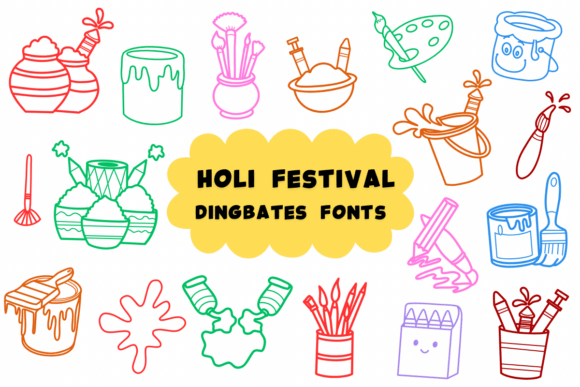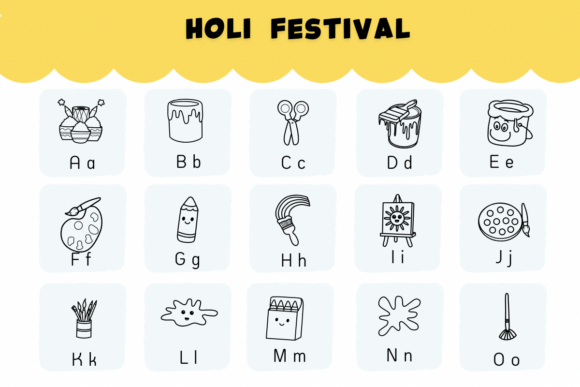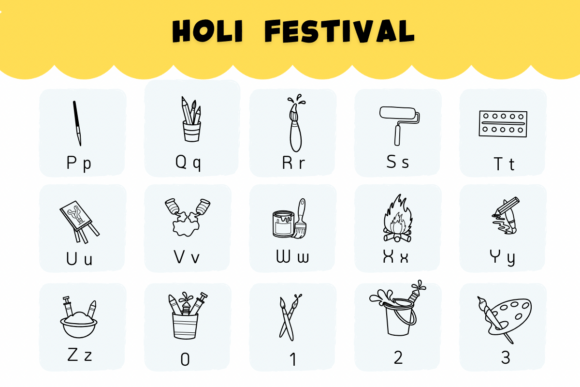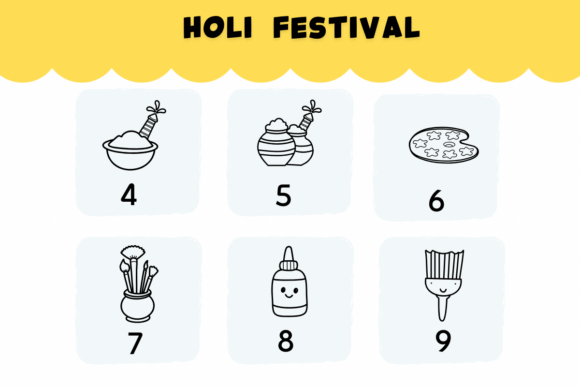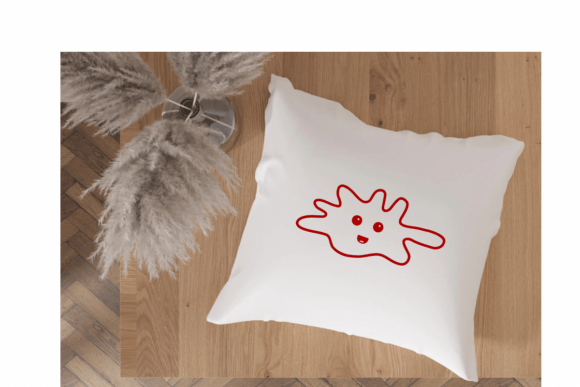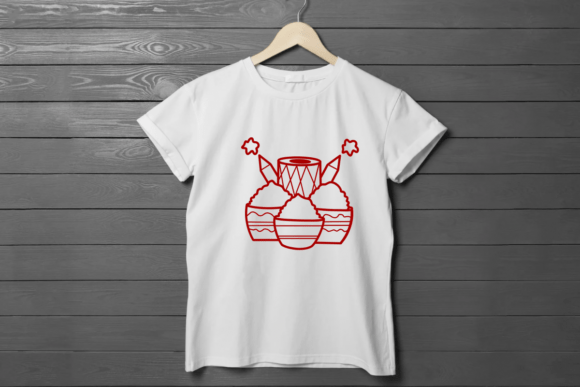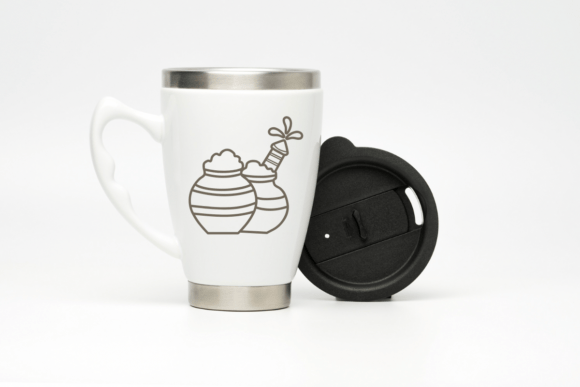
Get Ready to Paint Your Creativity with Holi Festival Font
Have you ever stared at a blank canvas, a sheet of paper, or a digital screen, searching for that perfect spark to ignite your creative project? The blank slate can be intimidating, but it’s also an opportunity to unleash your imagination. Whether you’re a seasoned designer or a DIY enthusiast, you know that the right tool can make all the difference.
Enter the Holi Festival Font, a charming dingbats font that brings the vibrant spirit of India’s beloved Holi Festival to your creative projects. With its sketch-style design, this font is perfect for adding a personal touch to wedding invitations, DIY crafts, decorations, logos, and many other creative ideas. As a designer, you’ll appreciate the unique character of the Holi Festival Font, which can elevate your work and make it stand out from the crowd.
Holi Festival Font Key Features
- Font Style: A unique, hand-drawn font inspired by traditional Indian Holi festival designs, perfect for adding a festive touch to your designs.
- Character Set: Includes a comprehensive set of characters, including uppercase and lowercase letters, numbers, and special characters, making it suitable for a wide range of design applications.
- Unique Characteristics: Features intricate, hand-drawn designs and vibrant colors, evoking the spirit of the Holi festival and adding a touch of cultural authenticity to your designs.
Holi Festival Font Review
At first glance, the Holi Festival Font is a vibrant and eye-catching choice for any project that needs a touch of cultural flair. ✨ I love how the font’s intricate design elements evoke the colorful spirit of the Holi festival. The font’s various styles and sizes offer a lot of flexibility for designers to create visually appealing compositions.
However, there are some limitations to consider: ⚠️ the font’s readability can suffer when used in smaller sizes or with low contrast backgrounds. Additionally, some of the design elements can be distracting if not used thoughtfully.
- Vibrant and colorful design elements
- Multiple styles and sizes for flexibility
- Great for projects that need a cultural touch
- Can be distracting if not used thoughtfully
- Readability suffers in small sizes or low contrast backgrounds
The Holi Festival Font is a unique and engaging choice for designers who want to add some cultural flair to their projects. While it has some limitations, the font’s potential is undeniable. With careful use, this font can add a lot of visual interest to a design.
The Holi Festival Font is perfect for:
- Celebrating Holi festivals and events
- Creating colorful and vibrant designs
- Adding a playful and festive touch to your designs